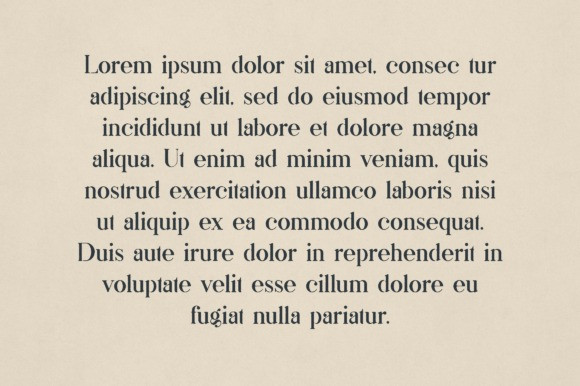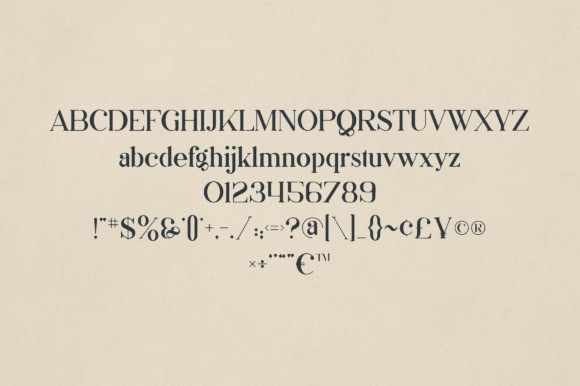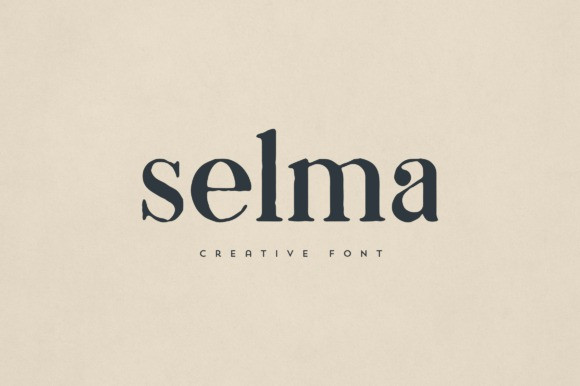
Selma Font
Selma Font is an elegant and versatile serif font that will make your typography truly unique! It will enchant every logo, branding, headline, or plain text!